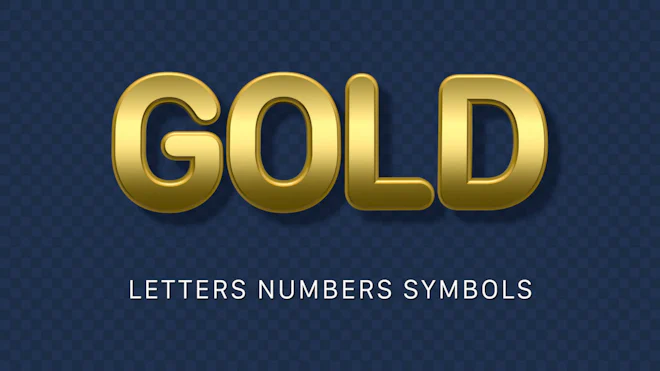
This stock motion graphics video pack includes 74 clips of gold lowercase and uppercase letters, numbers and symbols on a transparent alpha channel in a seamless loop.